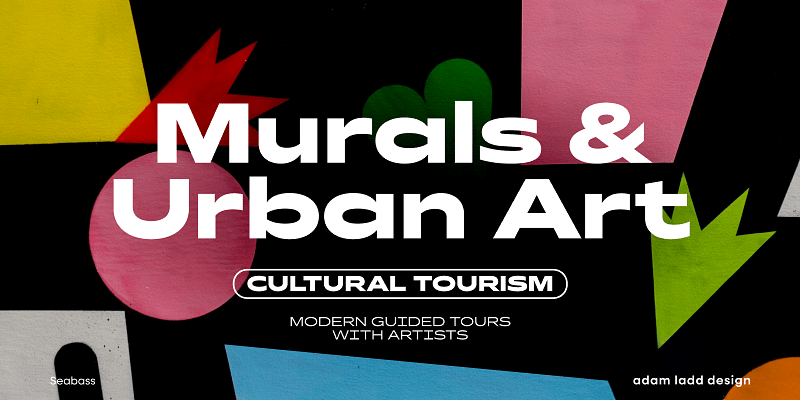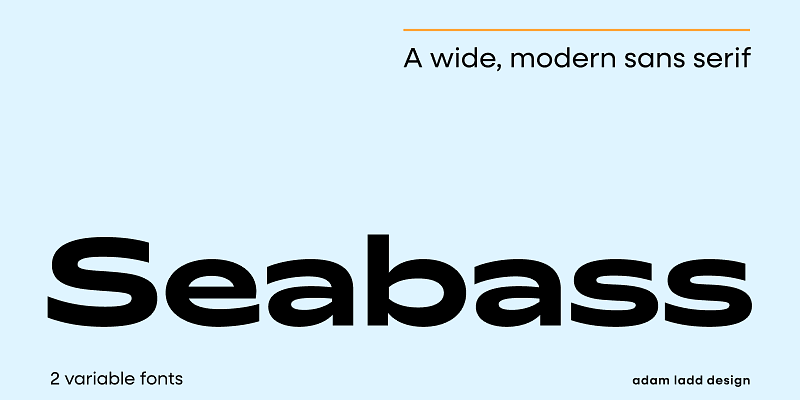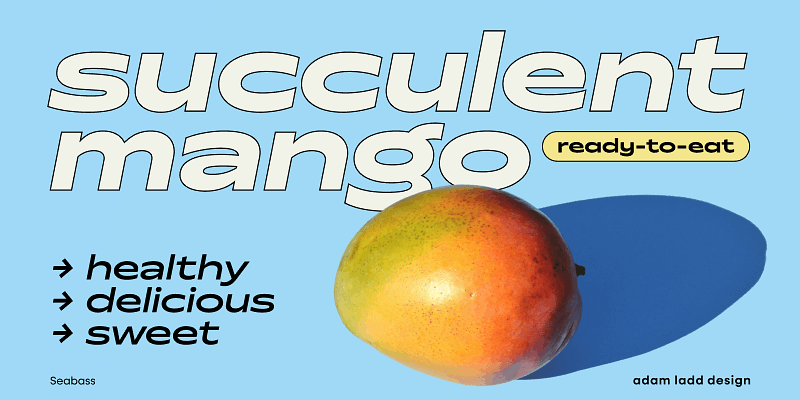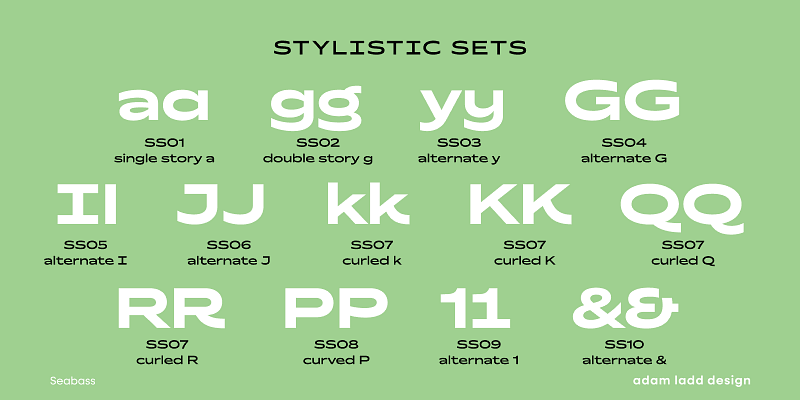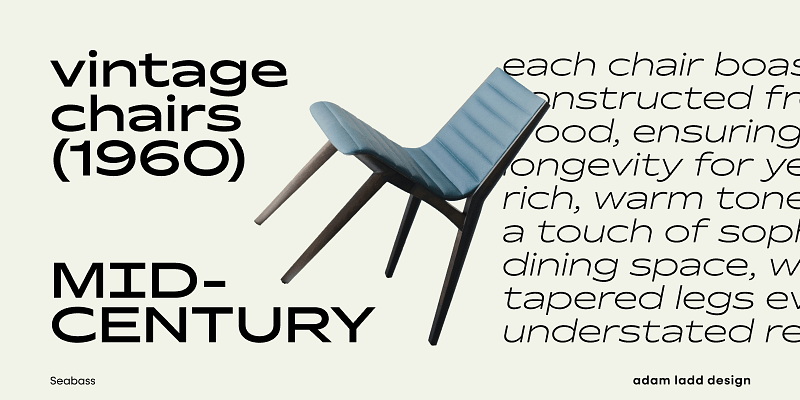
Seabass is a wide, modern sans serif with slight reverse contrast. The distinctive design blends eye-catching style with function. Look closely; it’s got California vibes. Think beach culture, skate parks, shopping malls, and boardwalk energy. It’s crafted to create typographic interest and visual texture, especially when set in all caps. This family is ideal for display but still intriguing and useful at small sizes. Available as a variable font with a wide range of weights.
Designed by Adam Ladd. Seabass is a font family from Adam Ladd Design—a member of The Type Founders collection.